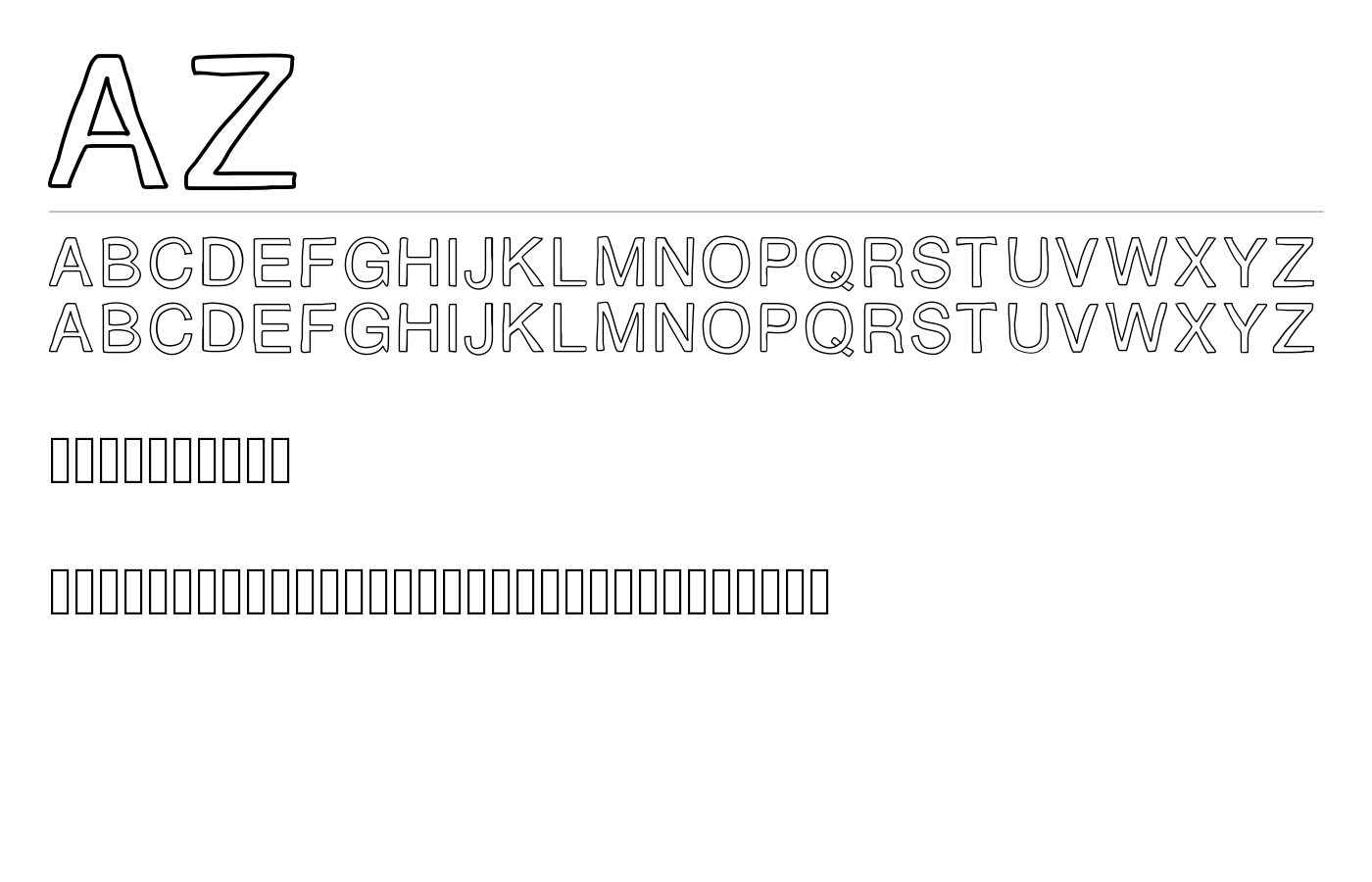
AZ Font is a playful, hand-drawn sans serif with a casual, informal feel. Its irregular, outlined letterforms give it a friendly and creative personality, making it ideal for fun, approachable branding, children's materials, or artistic projects where a relaxed, unique touch is desired. This font works best in headlines, logos, and creative displays where its handcrafted style can stand out.
AZ Font
About AZ Font